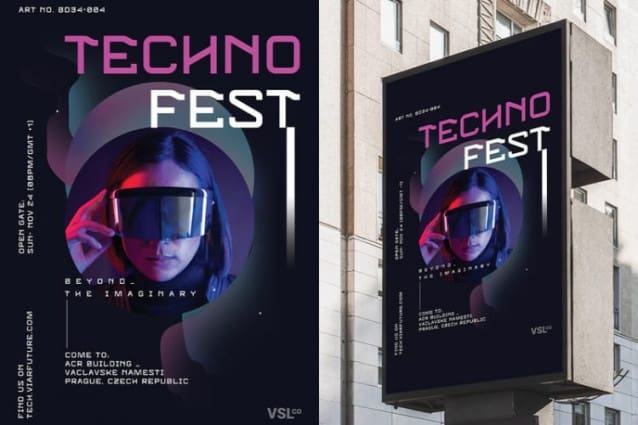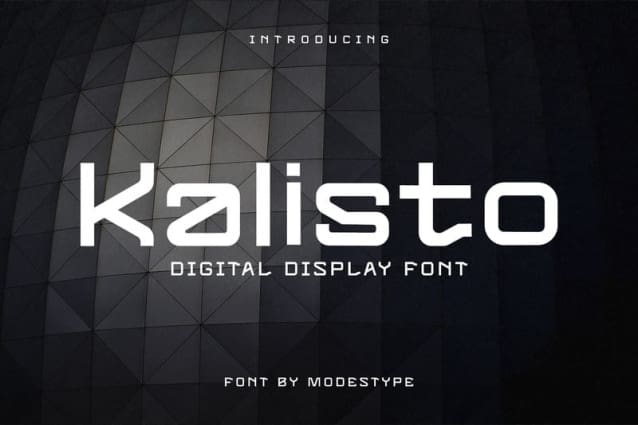
Kalisto Futuristic Font
Kalisto Futuristic Font, the digital display font that’s perfect for modern designs. With its unique shapes and modern sans serif style, Kalisto Futuristic Font is sure to make an impact on any project. Whether you’re designing for Instagram, YouTube, or the big screen, this font is perfect for creating striking graphics and titles.
Plus, its music font design makes it ideal for album covers and music videos. And with the unique shapes of its lowercase letters, KALISTO is sure to stand out from other regular futuristic fonts.